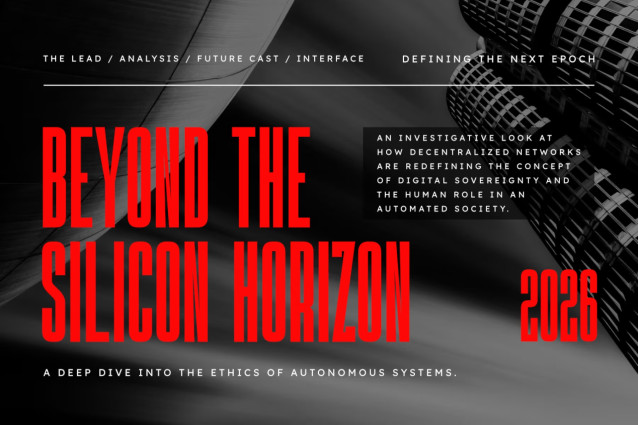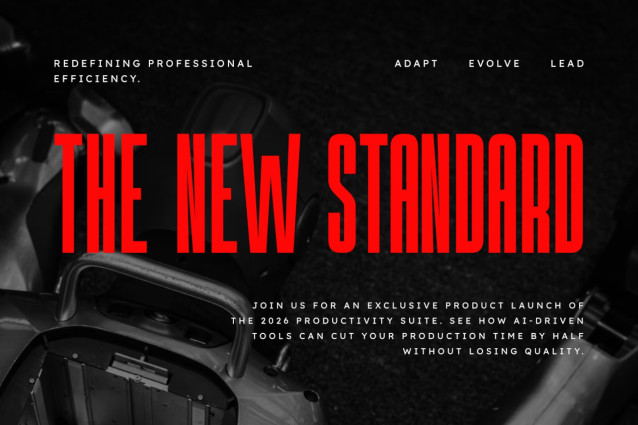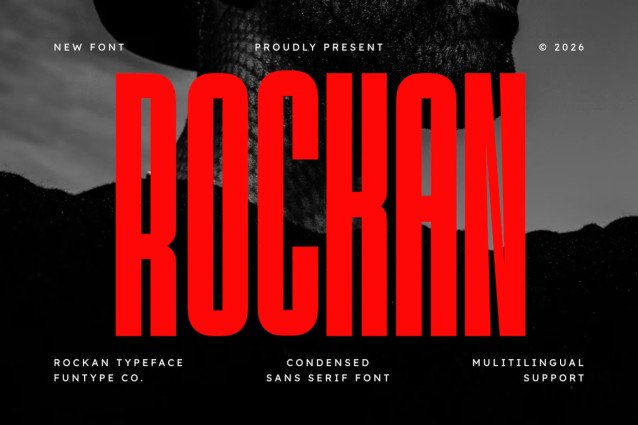
Rockan Font
Rockan Font, a tightly woven sans serif typeface that radiates bold sophistication and influential lines. Its distinctive, arresting silhouette, paired with meticulously drafted geometry, positions it as an ideal choice for compelling headers, sleek logos, stalwart industrial branding, or lively promotional posters. With Rockan in the spotlight, your graphic masterpieces exude modern elegance and astute professionalism. This daring typeface infuses confidence into your creations, ensuring every striking feature is impactful.